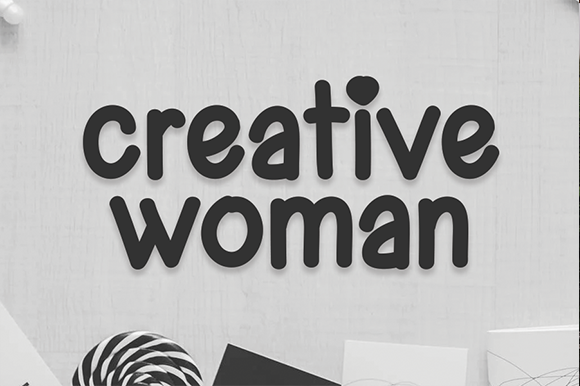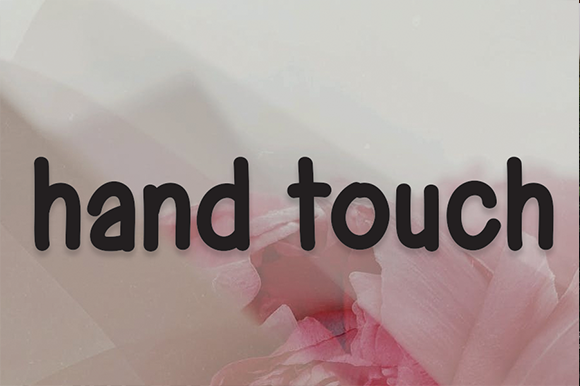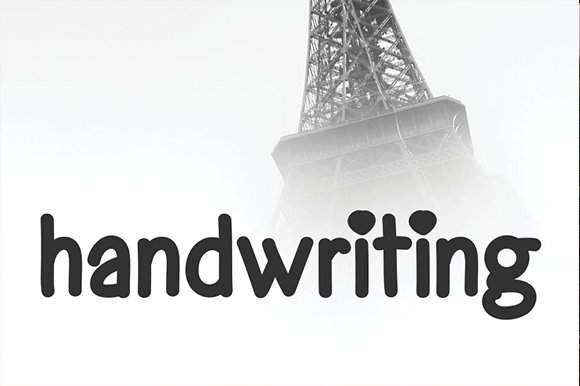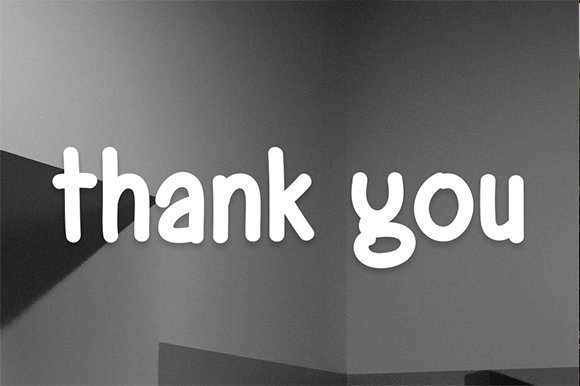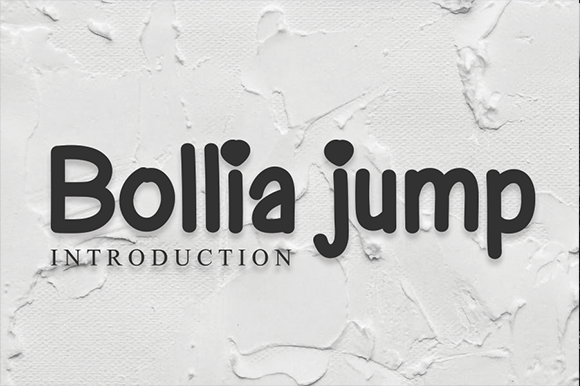
Bollia Jump Font: Elevate Your Designs with Elegant Simplicity
In the world of typography, few fonts manage to strike a balance between elegance and versatility. Bollia Jump, however, is a standout display font that distills sophistication into a single, remarkable typeface. Whether you’re a designer looking for the perfect font for your logo, branding, or social media, or a crafty DIY enthusiast seeking a stylish touch for your projects, Bollia Jump is an exceptional choice.
The Essence of Bollia Jump
Bollia Jump simplifies elegance into one truly outstanding display font. Its design is characterized by clean lines, subtle curves, and a distinctive charm that sets it apart from more generic typefaces. This font is not just about aesthetics; it’s about making a statement. With Bollia Jump, you can add a touch of sophistication and personality to any project, making it instantly more engaging and memorable.
One of the key advantages of Bollia Jump is its versatility. This font is the perfect fit for a wide range of applications, including:
• Logos and Branding: Create a lasting impression with a logo that exudes elegance and professionalism. Bollia Jump’s unique style ensures that your brand stands out in a crowded marketplace.
• Social Media: Elevate your social media presence with eye-catching posts and stories. Bollia Jump’s readability and charm make it ideal for grabbing the attention of your audience.
• Crafty DIY Projects: Add a personal touch to your handmade creations, such as customized jewelry, home decor, or art pieces. Bollia Jump’s distinctive style will make your DIY projects truly one-of-a-kind.
Why Choose Bollia Jump?
With so many fonts available, why should you choose Bollia Jump for your next project? Here are a few compelling reasons:
• Unique Style: Bollia Jump offers a fresh and distinctive look that will set your designs apart from the ordinary.
• Ease of Use: This font is incredibly easy to read and works well in both digital and print formats, making it highly versatile.
• Elegance: Bollia Jump brings a level of sophistication to any project, making it perfect for brands and individuals who want to convey a sense of luxury or refinement.
How to Use Bollia Jump Effectively
To get the most out of Bollia Jump, consider the following tips:
• Pair it with Neutrals: Combine Bollia Jump with neutral fonts for a balanced look that lets the elegance of the font shine.
• Experiment with Sizes: Play with different font sizes to create visual hierarchy and emphasis in your designs.
• Customize: Don’t be afraid to experiment with colors, textures, and effects to make Bollia Jump truly your own.
Bollia Jump is more than just a font; it’s a design statement. Its unique blend of elegance and simplicity makes it an invaluable tool for designers and crafters alike. Whether you’re looking to elevate your brand, enhance your social media presence, or add a personal touch to your DIY projects, Bollia Jump is the perfect choice. With its versatility, readability, and distinctive charm, Bollia Jump is sure to become a staple in your design toolkit.